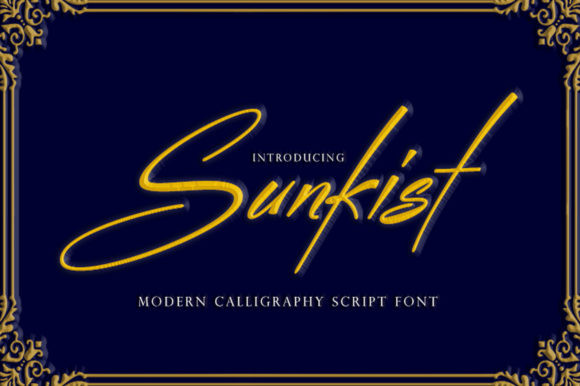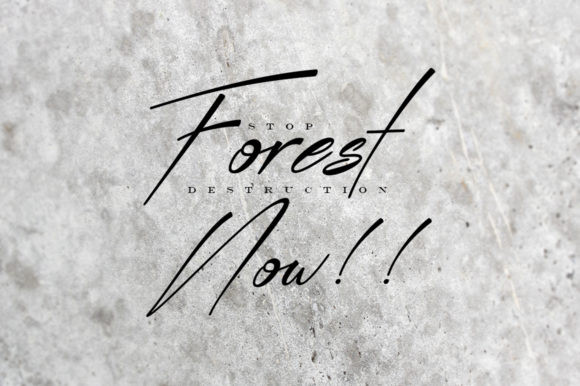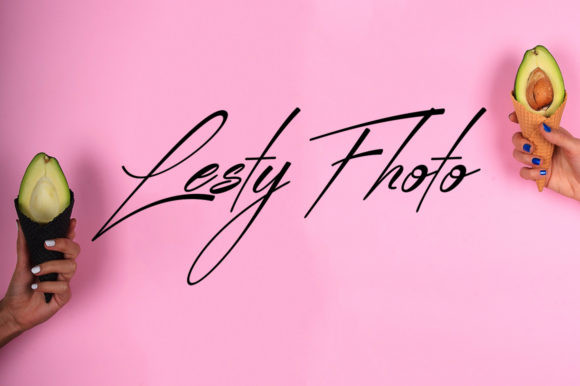
Sunkist Font
Sunkist is a magical handwritten font carefully created with a touch of elegance. Get inspired by its authentic feel and use it to create gorgeous wedding invitations, beautiful stationary art, eye-catching social media posts, and cute greeting cards.